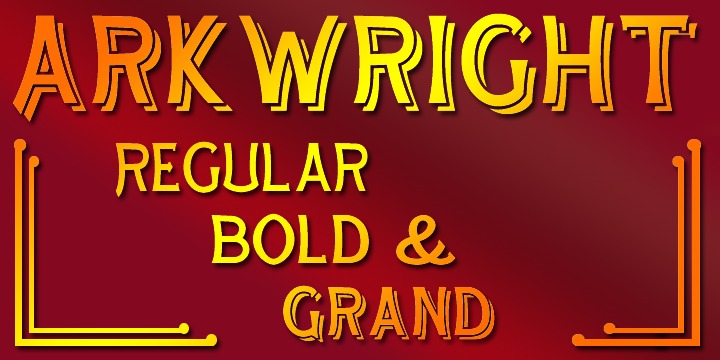
Arkwright, named for a well known fictional shopkeeper who kept his shop open all hours is inspired by traditional British (and transatlantic) shop signage. It is a spiritual companion and ideal companion to our more elaborate Granville family. Arkwright is offered in Regular and bold weights and a more decorative ‘Grand’ form. These faces are especially suitable for posters, period advertising, Chapter headings and signage. Arkwright and Granville are also offered together in a value pack.